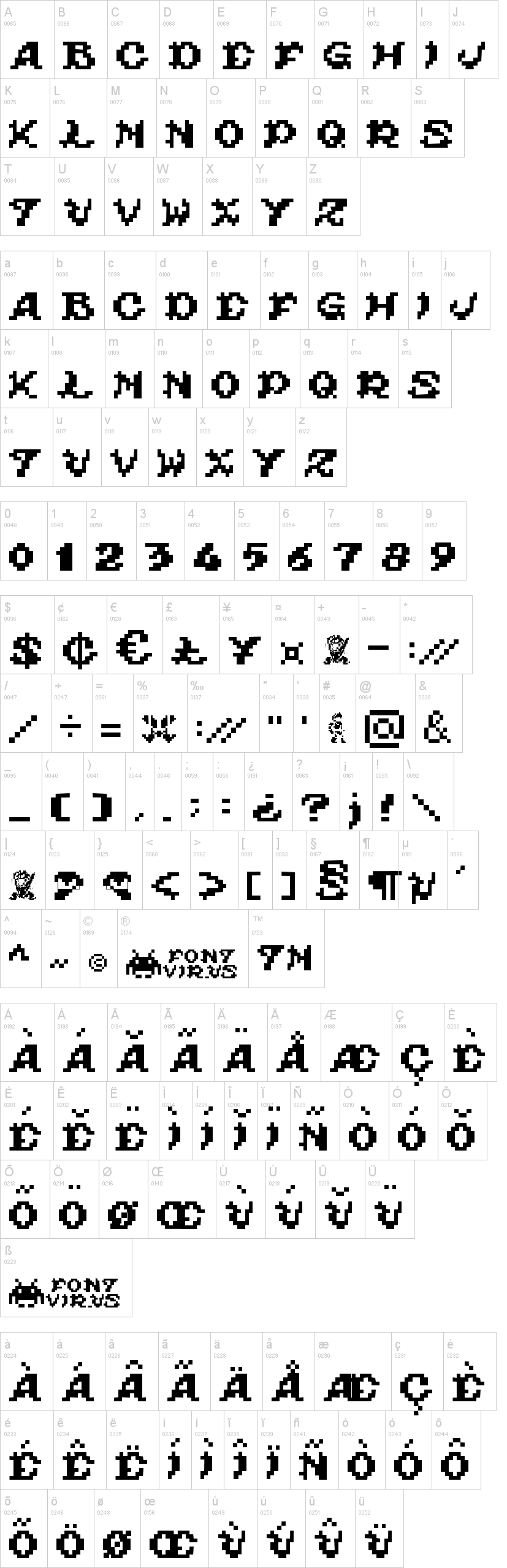
Note of the authorghouls ghosts and goblins is a spoof font from one of the best (and hardest) video games in history, ghosts and goblins! the font contains A-Z caps and lower case, digits, special chars, the full international char set, and some 8bit style dingbatz!